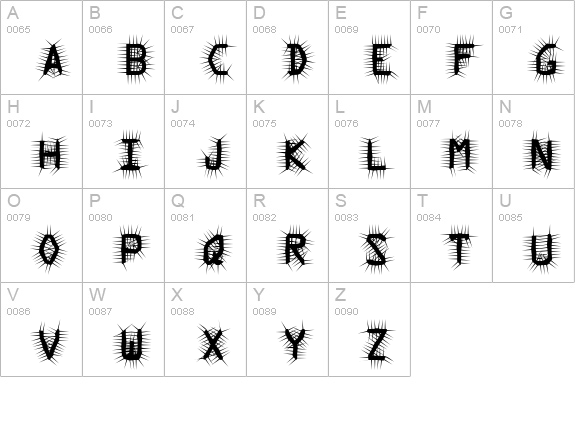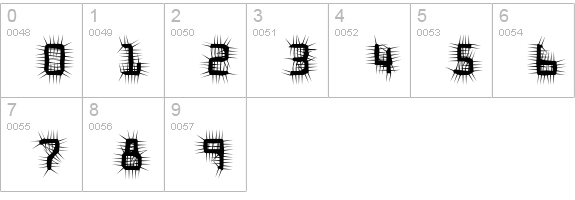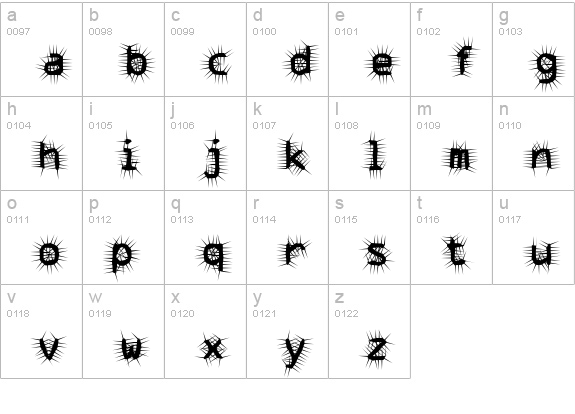
Crack font is a unique and edgy typeface that exudes a sense of modernity and sophistication. With its cracked design elements, this font adds a touch of rugged charm to any project. Whether you're creating a poster, logo, or website, Crack font is sure to make a bold statement. Best of all, it is available for free download at FontsMarket.com, allowing you to easily incorporate this striking font into your designs without any cost. Don't miss out on the opportunity to enhance your creations with the eye-catching Crack font today!